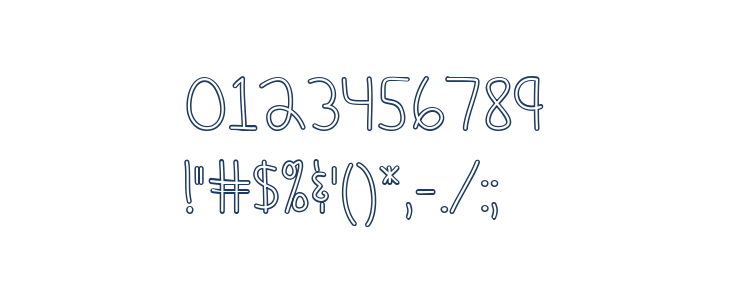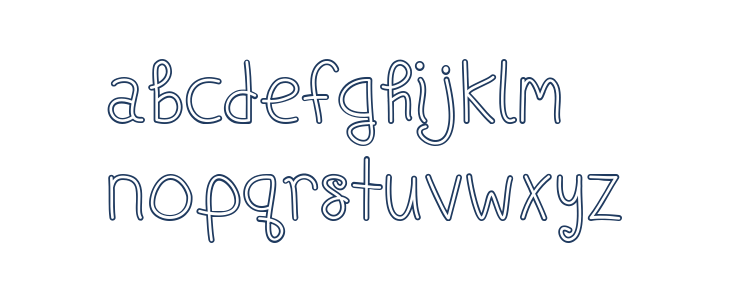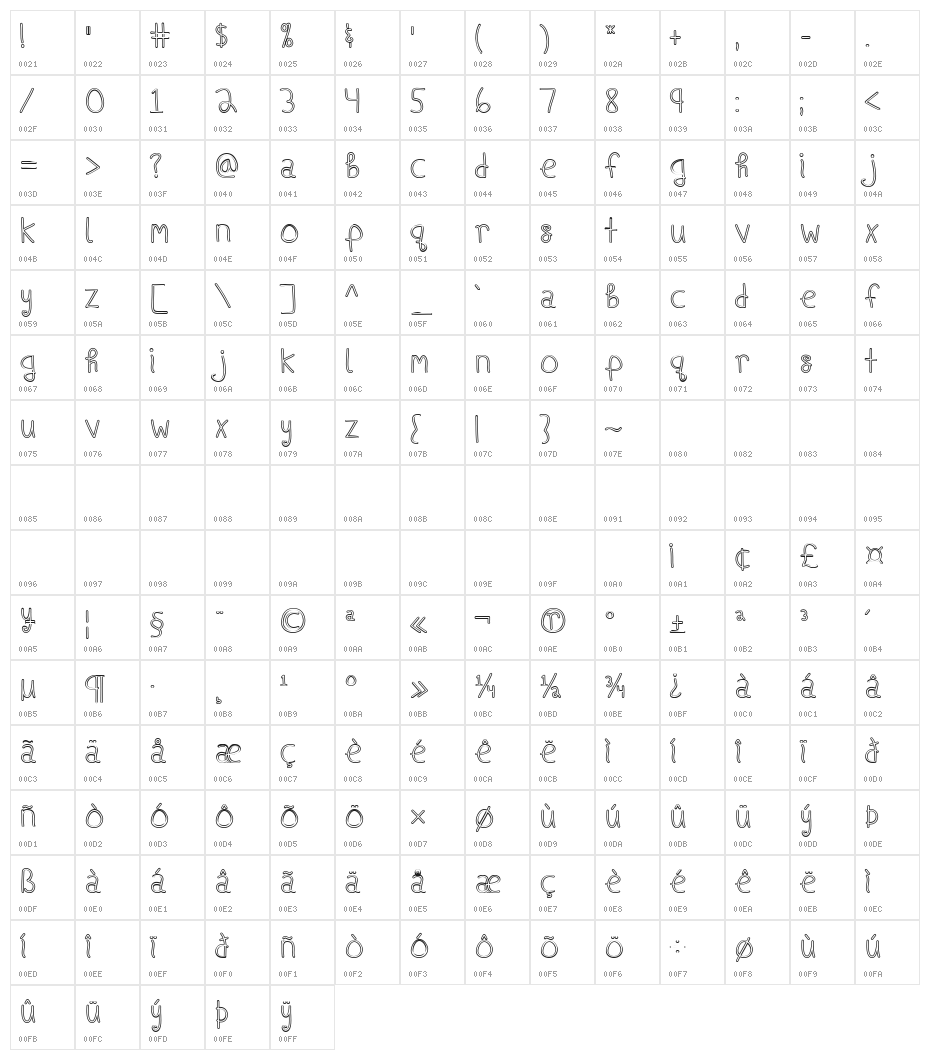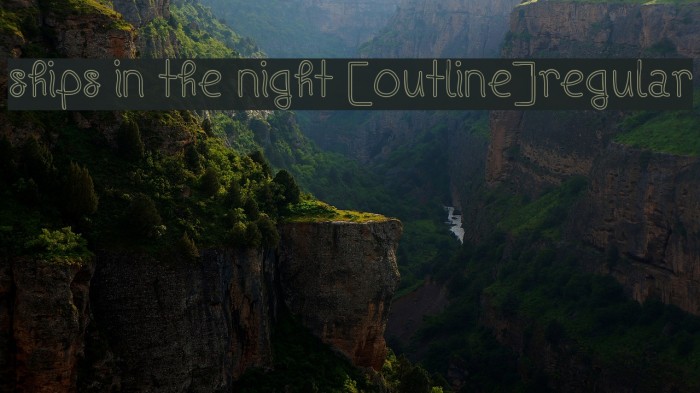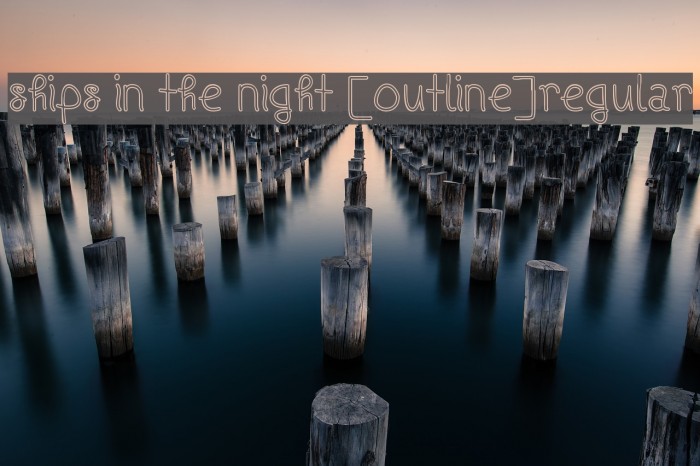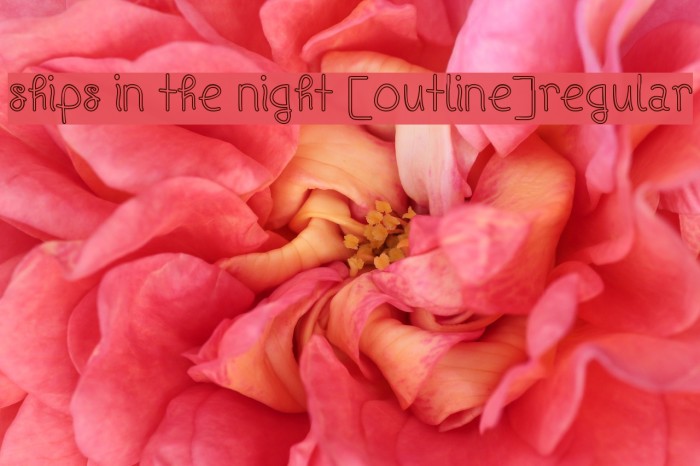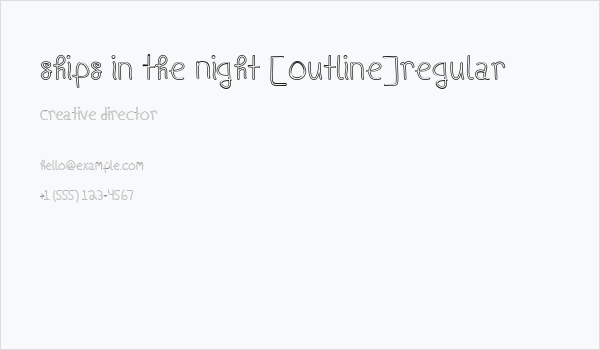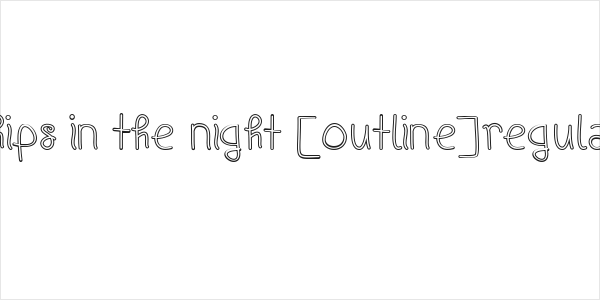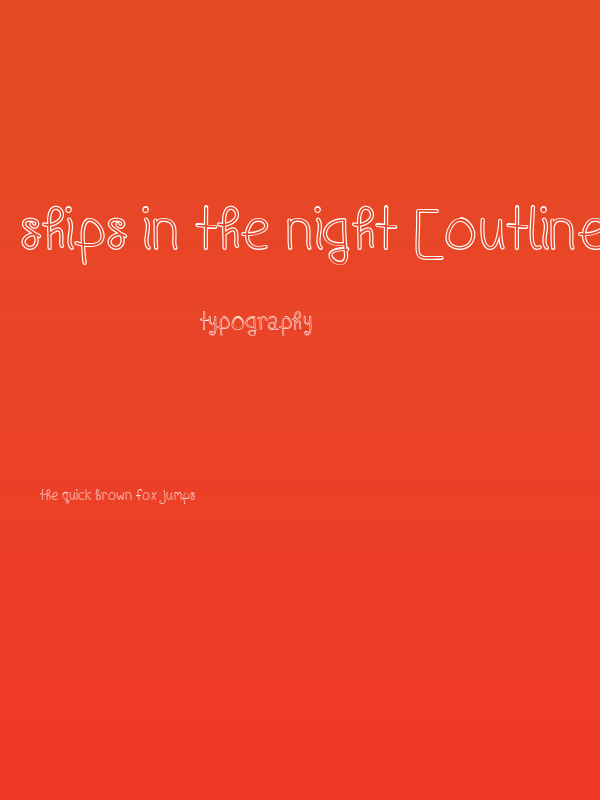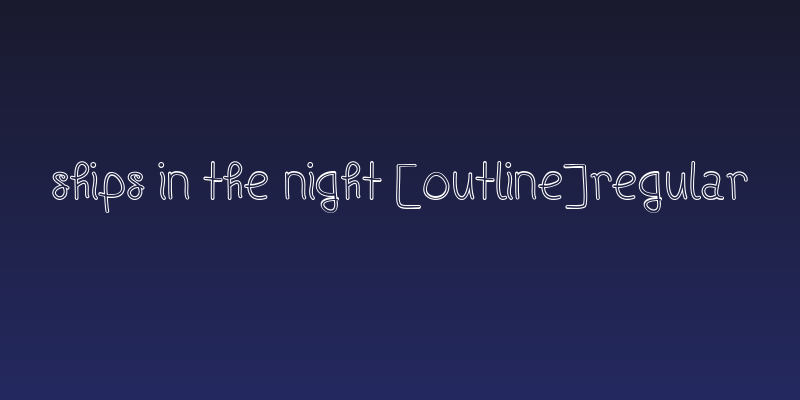
Ships In The Night [Outline]Regular Font
Ships In The Night [Outline]Regular Description
This playful and whimsical font features an outline style that gives it a unique, hand-drawn appearance. Each character is crafted with a consistent stroke width, creating a cohesive look across the alphabet. The rounded edges and slightly irregular shapes add a friendly and approachable feel, making it ideal for creative projects. The font includes both uppercase and lowercase letters, numerals, and a variety of special characters, ensuring versatility in design applications. Its outline nature allows for creative color fills and layering, enhancing its visual appeal.